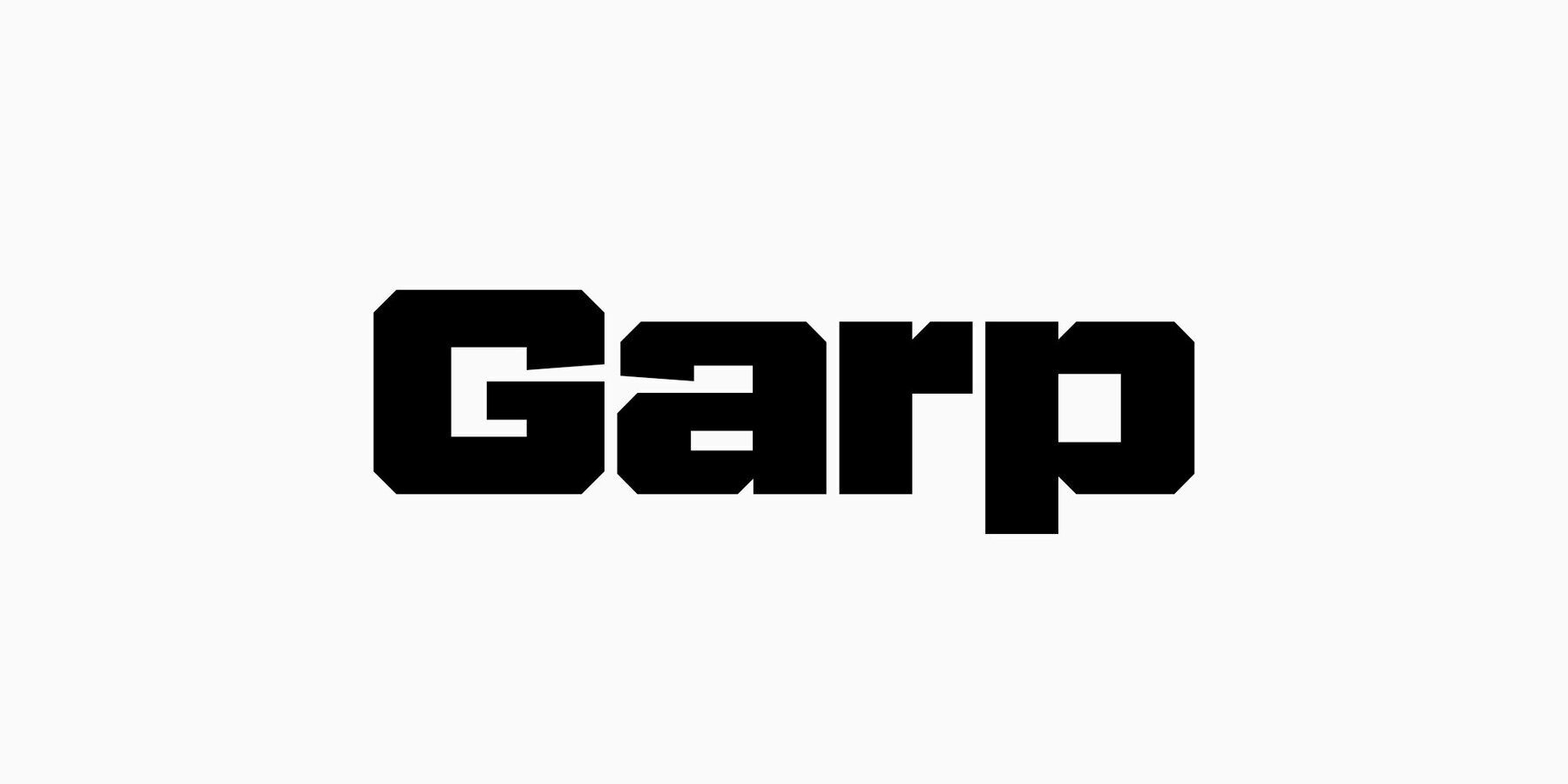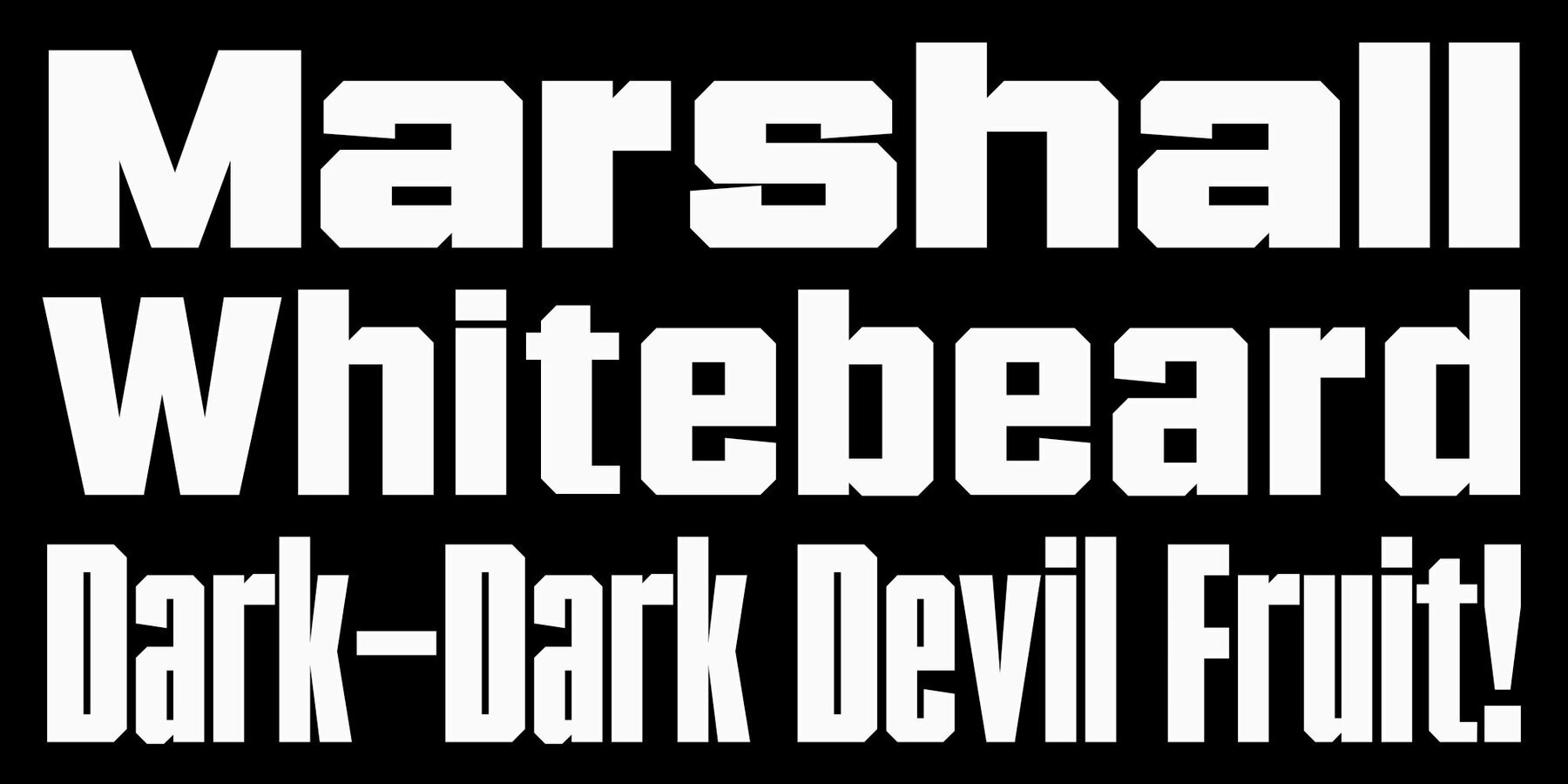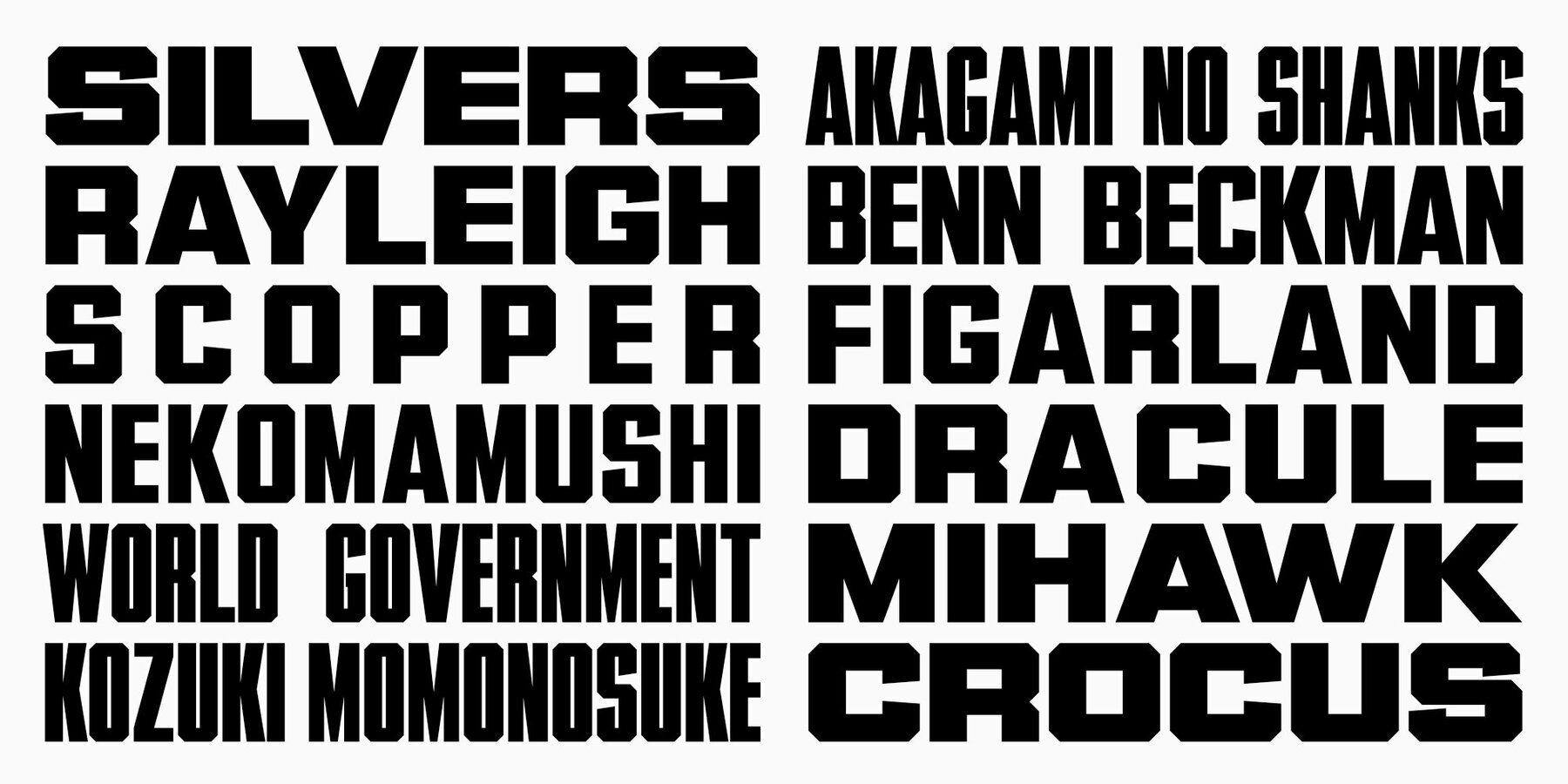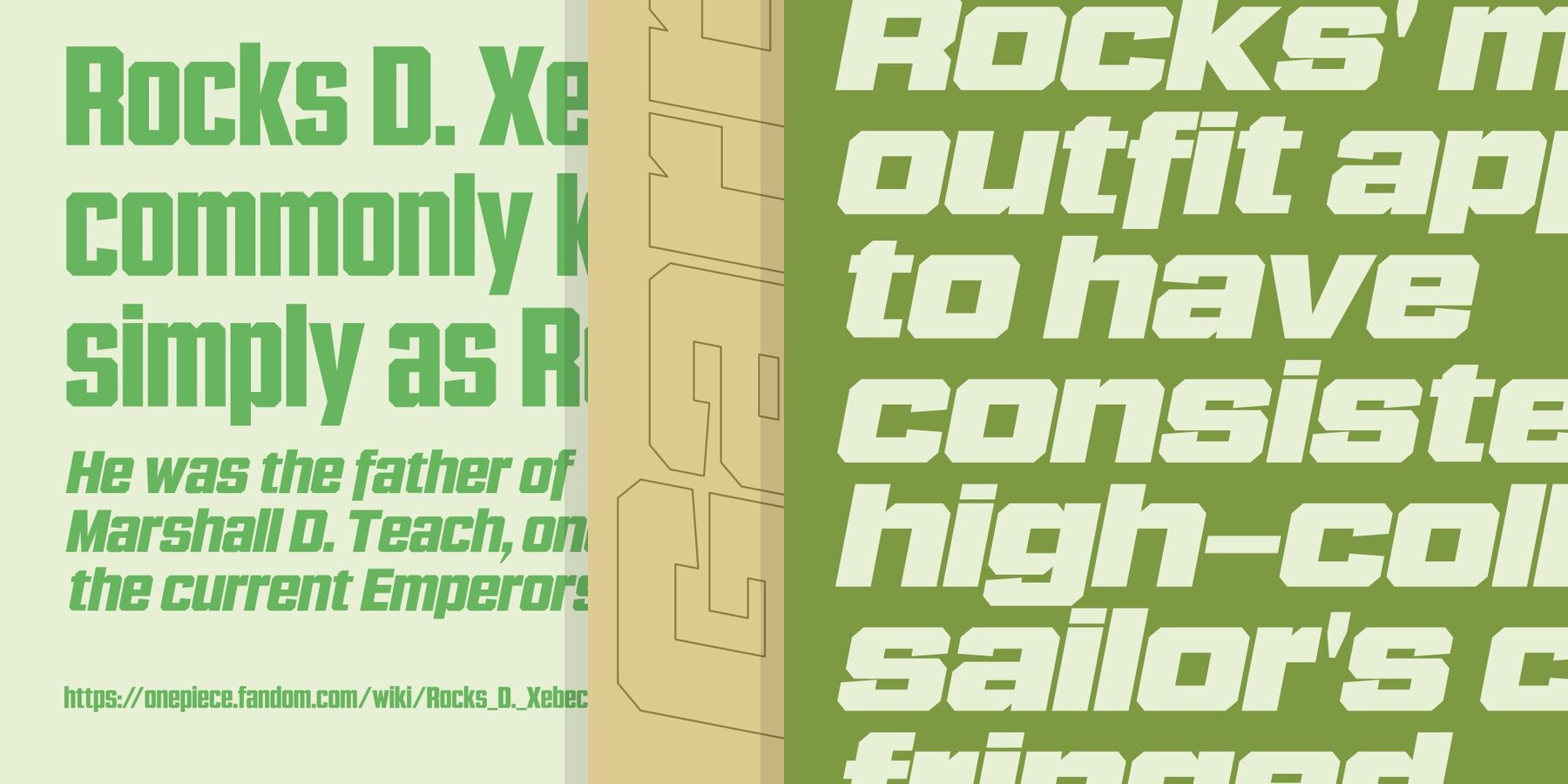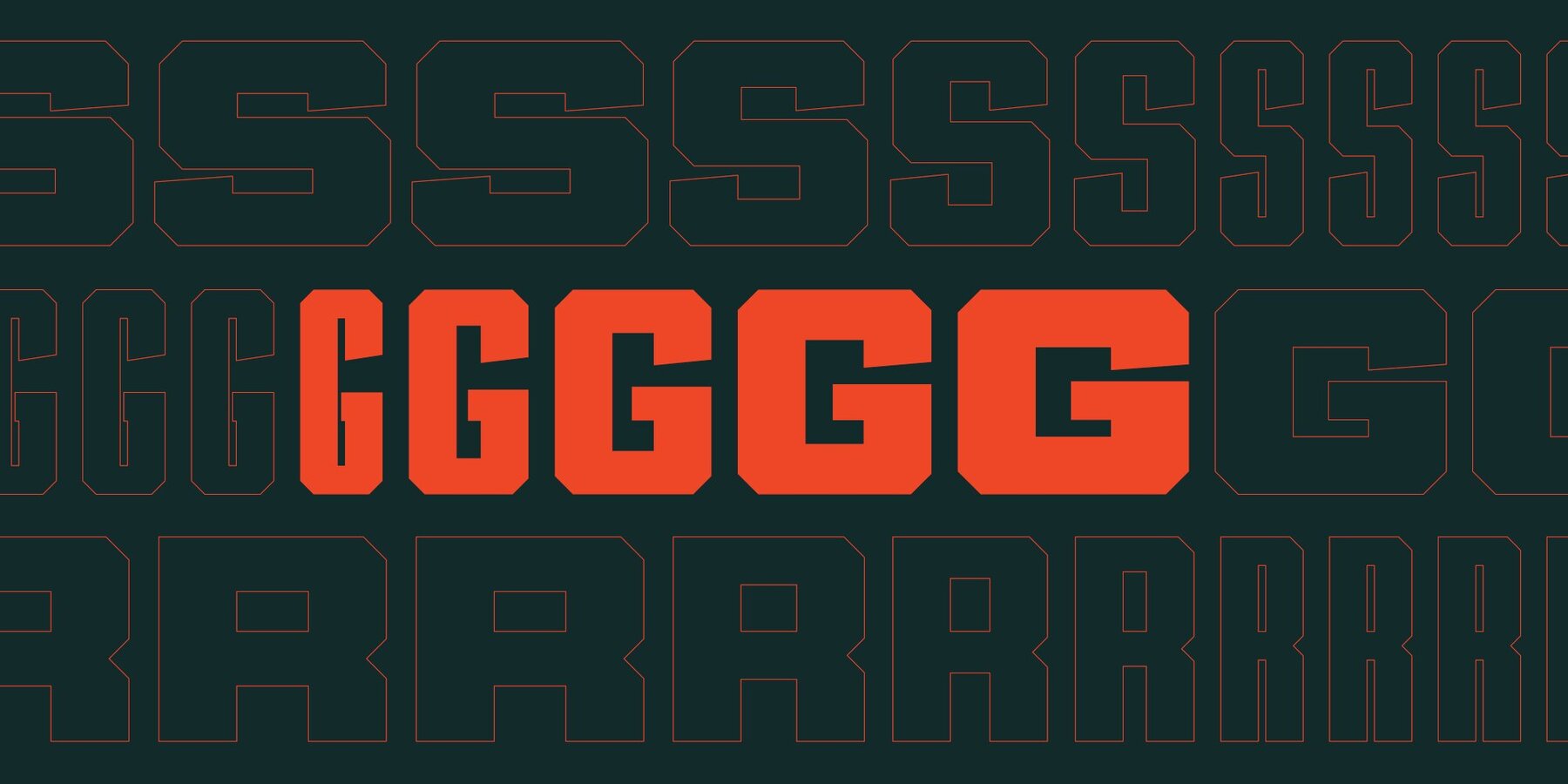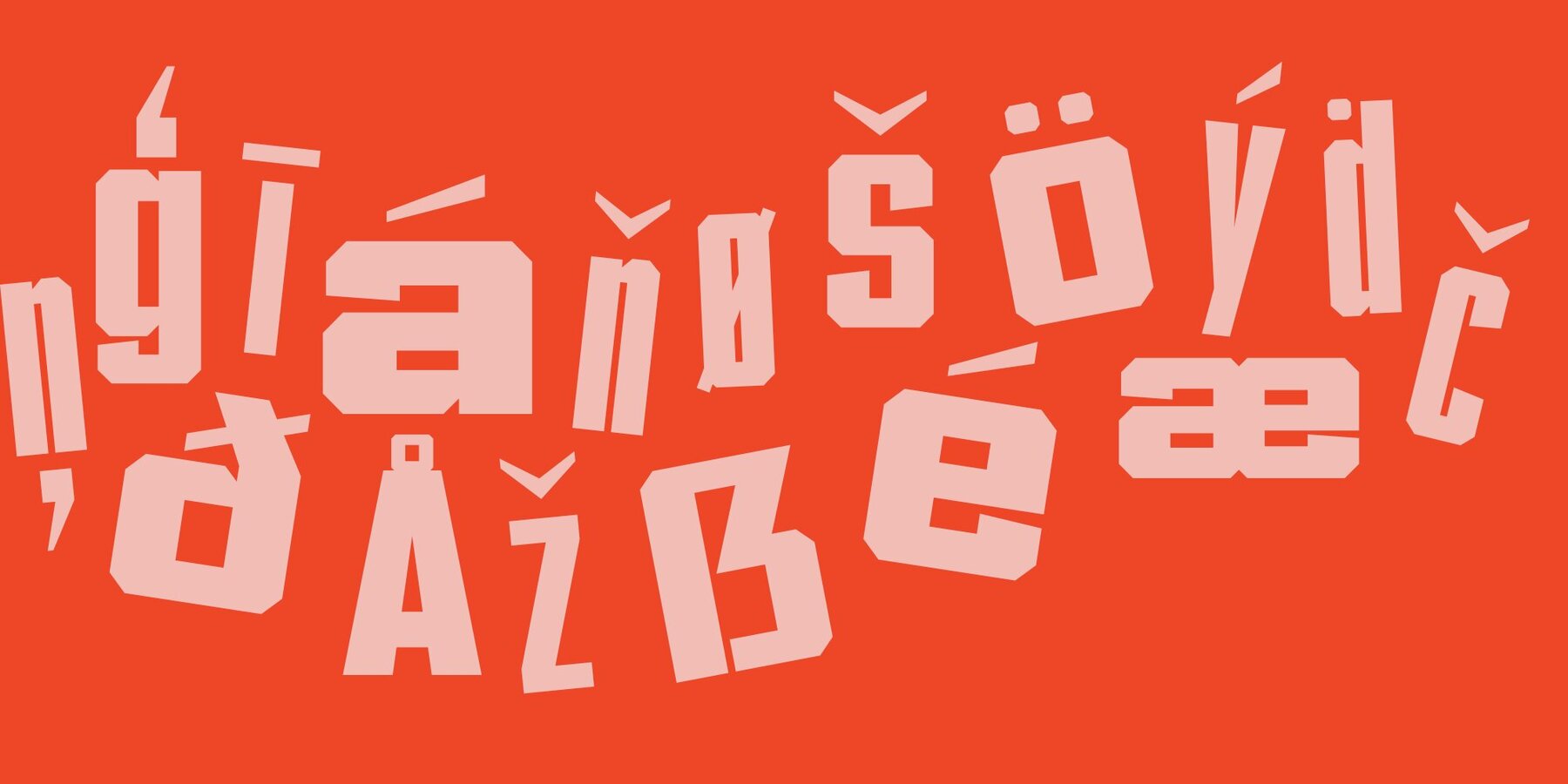
Garp Font
Garp Sans is a striking, modern sans serif font family designed to adapt effortlessly to your creative needs. With five versatile widths—Condensed, Narrow, Compaq, Normal, and Wide—it offers a range of styles from tight and tall to wide and commanding. Ideal for applications spanning automotive branding, tech startups, college posters, and vintage western themes, Garp Sans is truly adaptable. Infused with a blend of influences such as racing stripes and cowboy boots, Garp Sans boasts a strong geometric backbone with a clean, professional polish. This font family serves as the perfect choice for sport graphics, baseball merchandise, food packaging, or technology applications. When you need a go-to heading font that offers personality and presence, Garp Sans delivers a premium, standout appeal.Garp Sans: A Bold Typeface for Modern Creativity